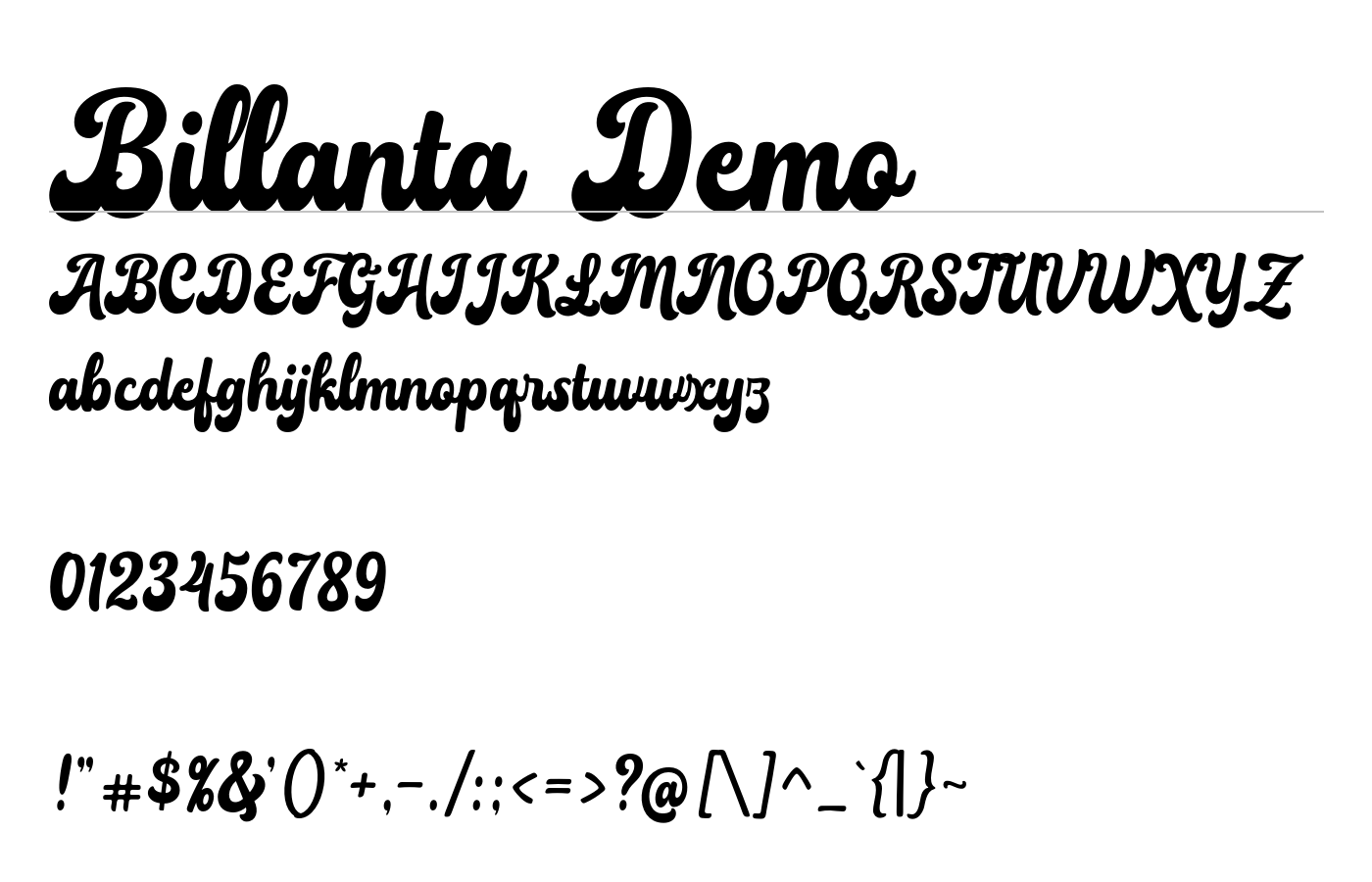
Billanta Demo is a bold, playful script font with a strong retro vibe, featuring smooth, rounded strokes and high contrast that make it both eye-catching and readable. Its thick, connected letterforms and unique character shapes convey a friendly, vintage charm ideal for fun branding, packaging, or standout headlines. This font works well where a lively and approachable style is needed to grab attention and add personality.
Billanta Demo Font
About Billanta Demo Font
| Font family | Billanta Demo Font |